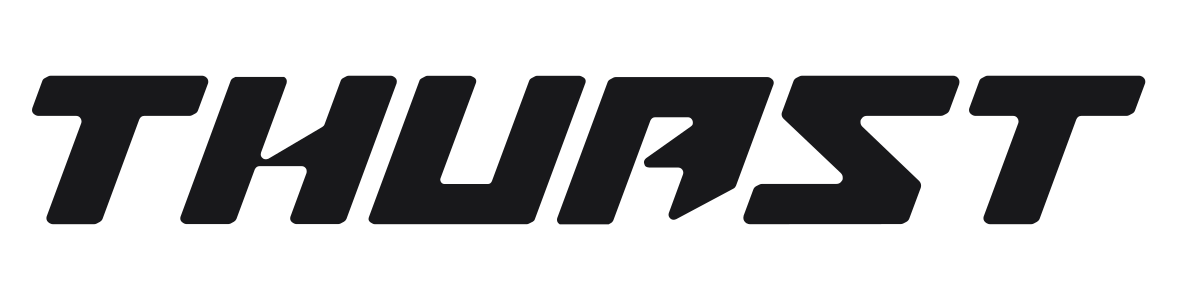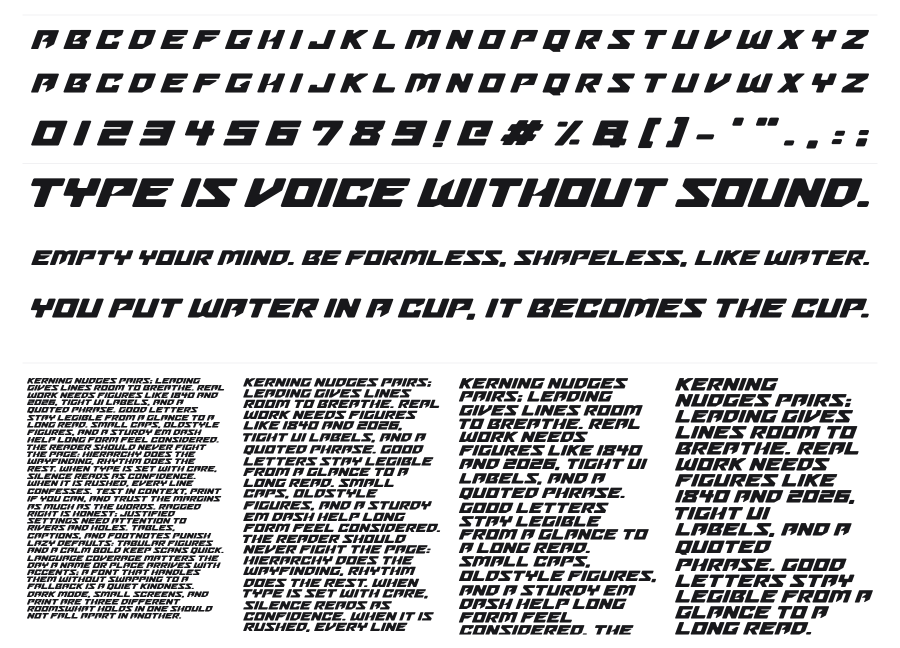
Thuast
Thuast is a bold condensed italic sans with sharp angular cuts and sheared terminals that push every character forward at speed. The geometric construction pulls from a retro-futuristic tradition rooted in 1970s and 1980s sci-fi and motorsport graphics. It hits hard at large sizes and works well anywhere an aggressive, high-energy tone is needed.